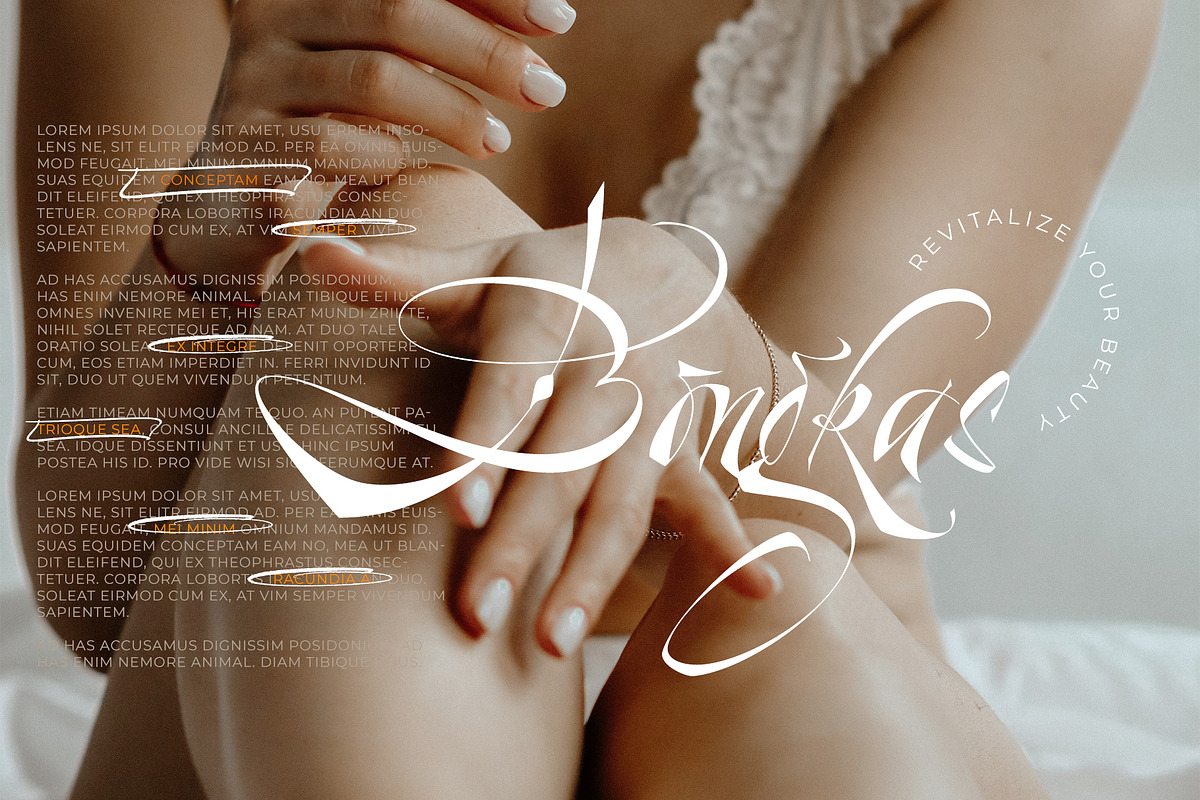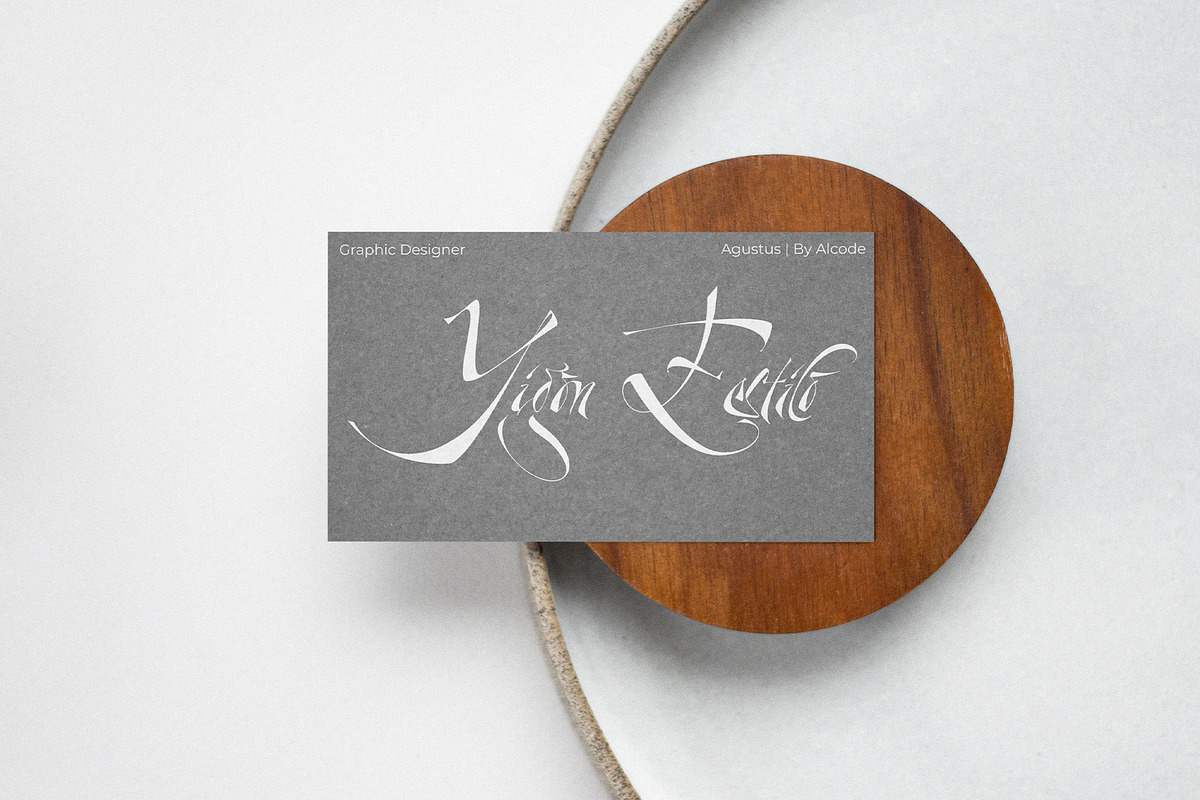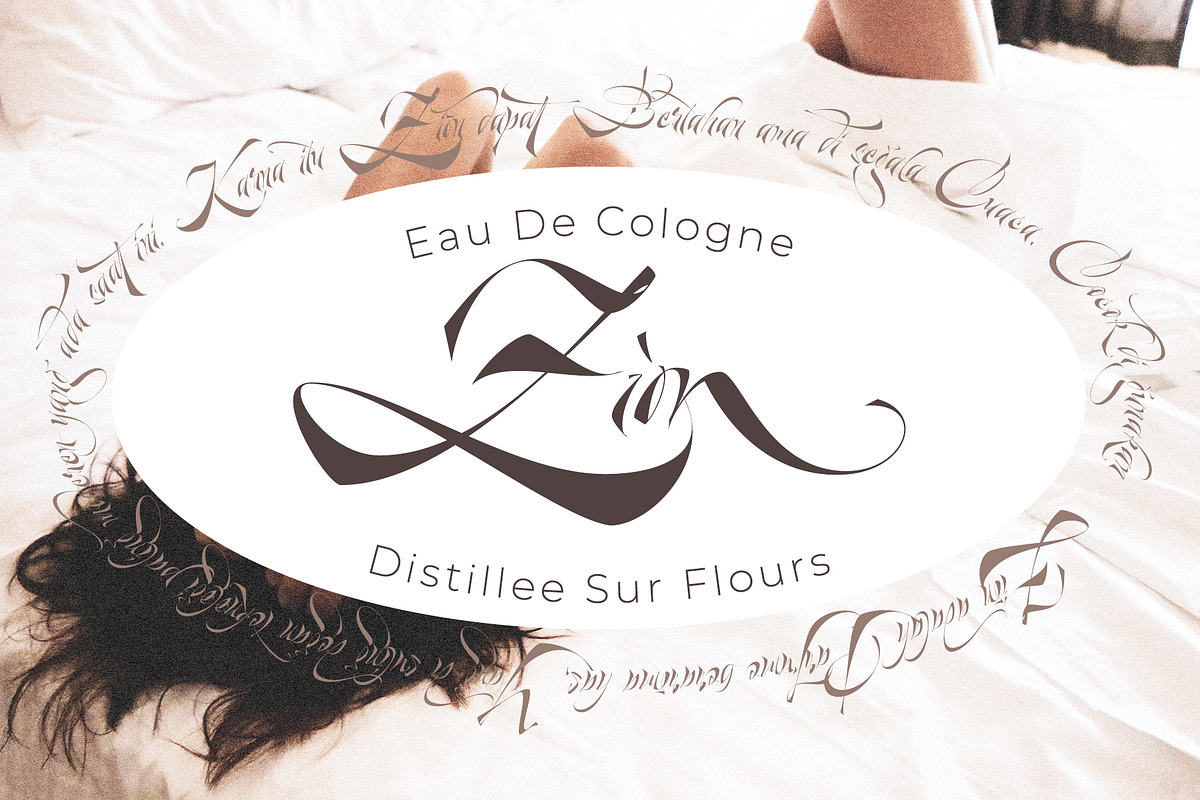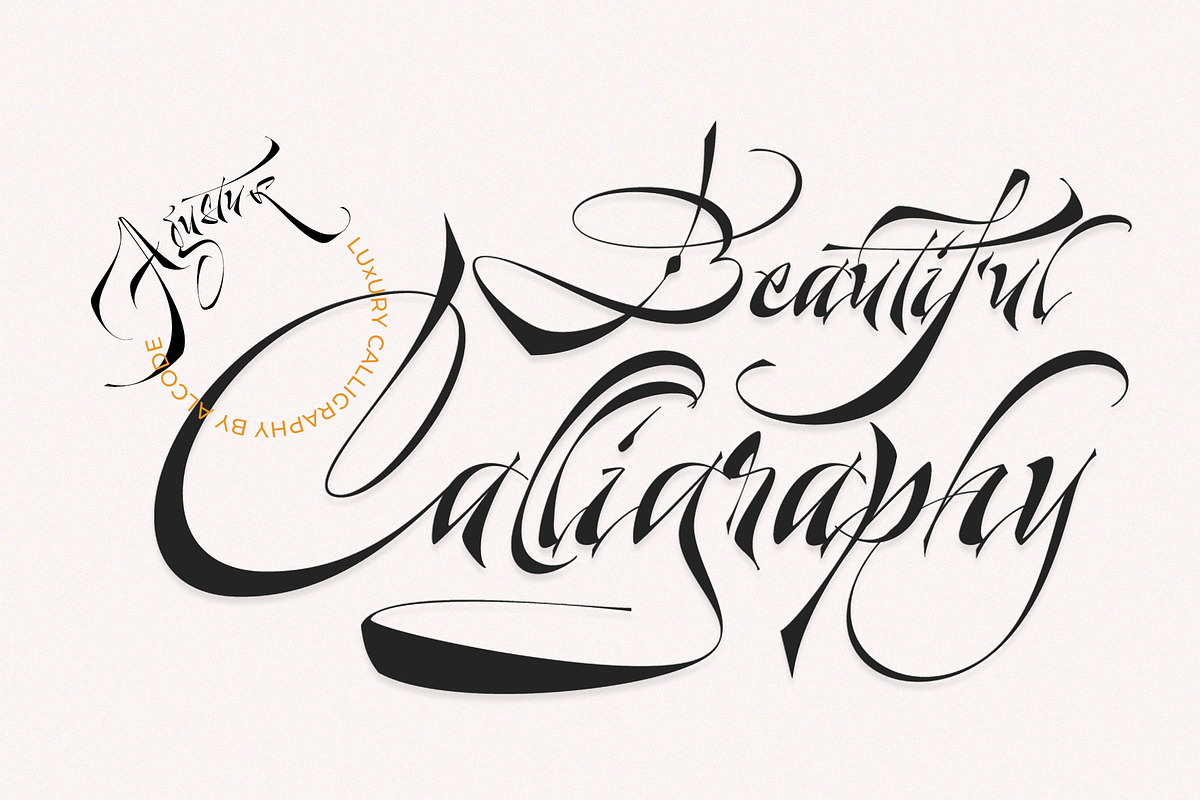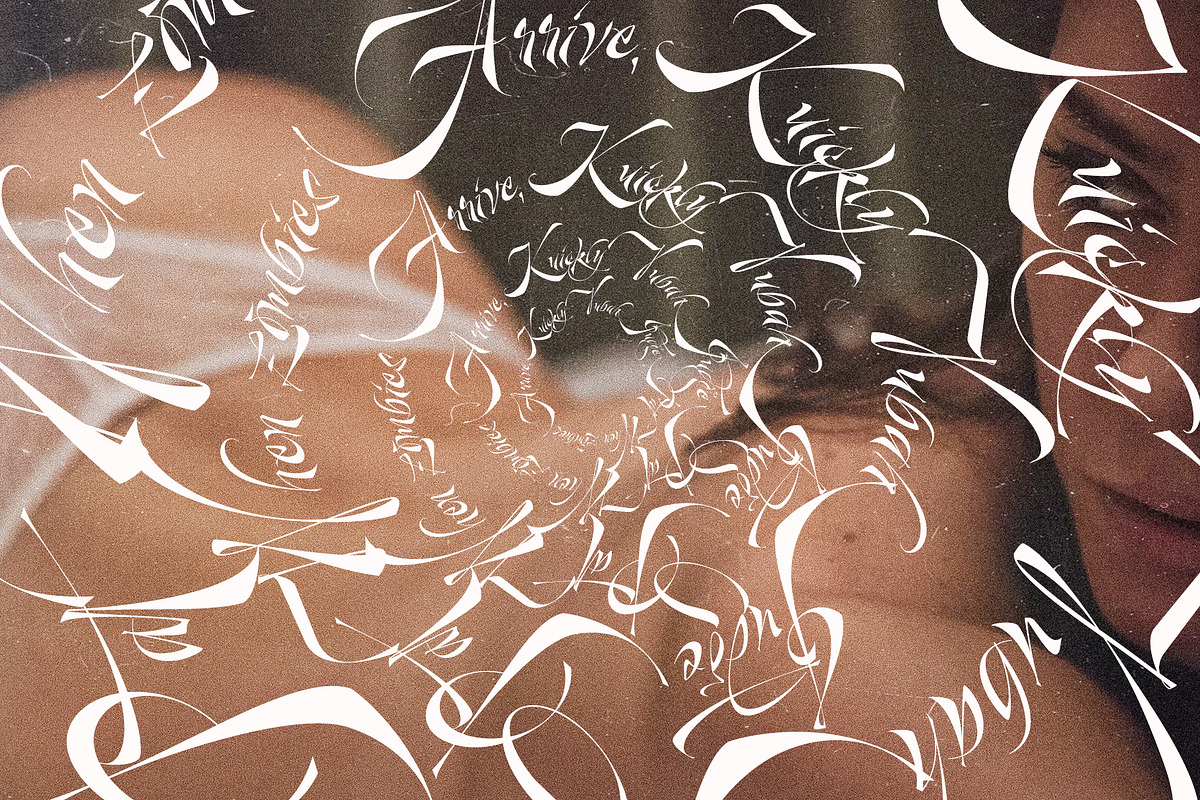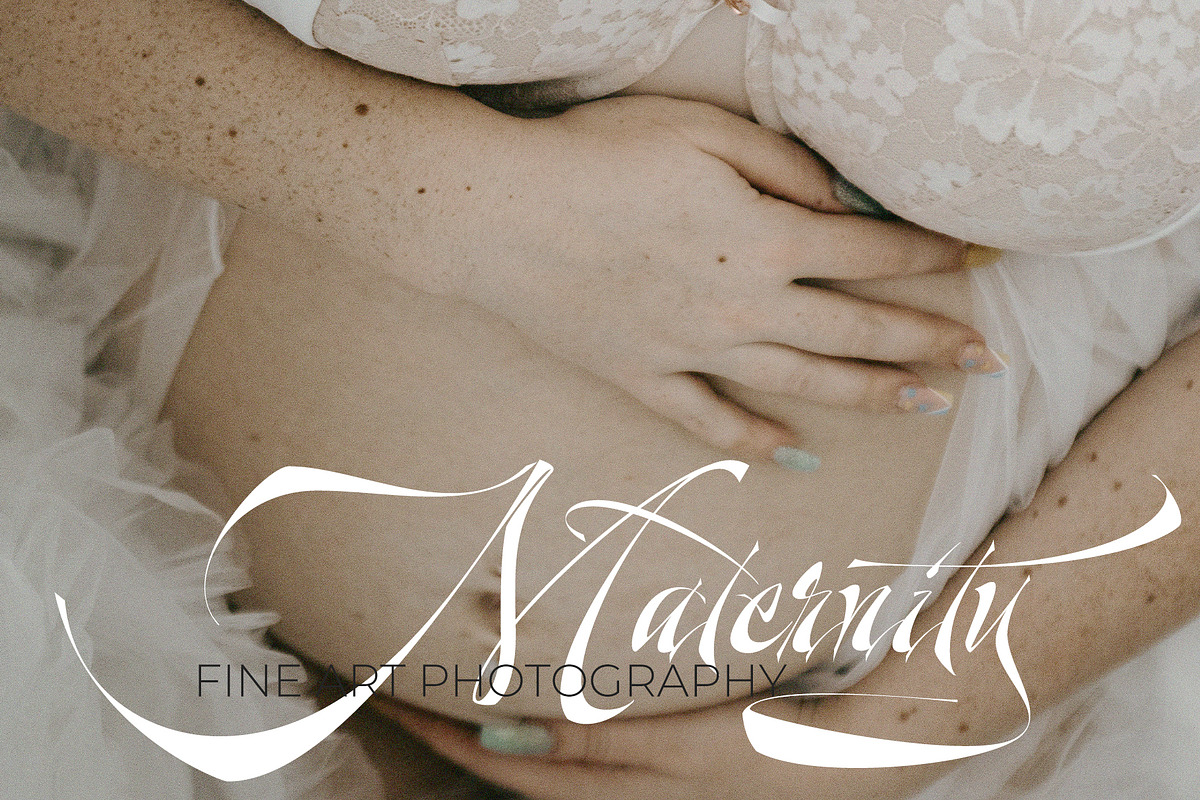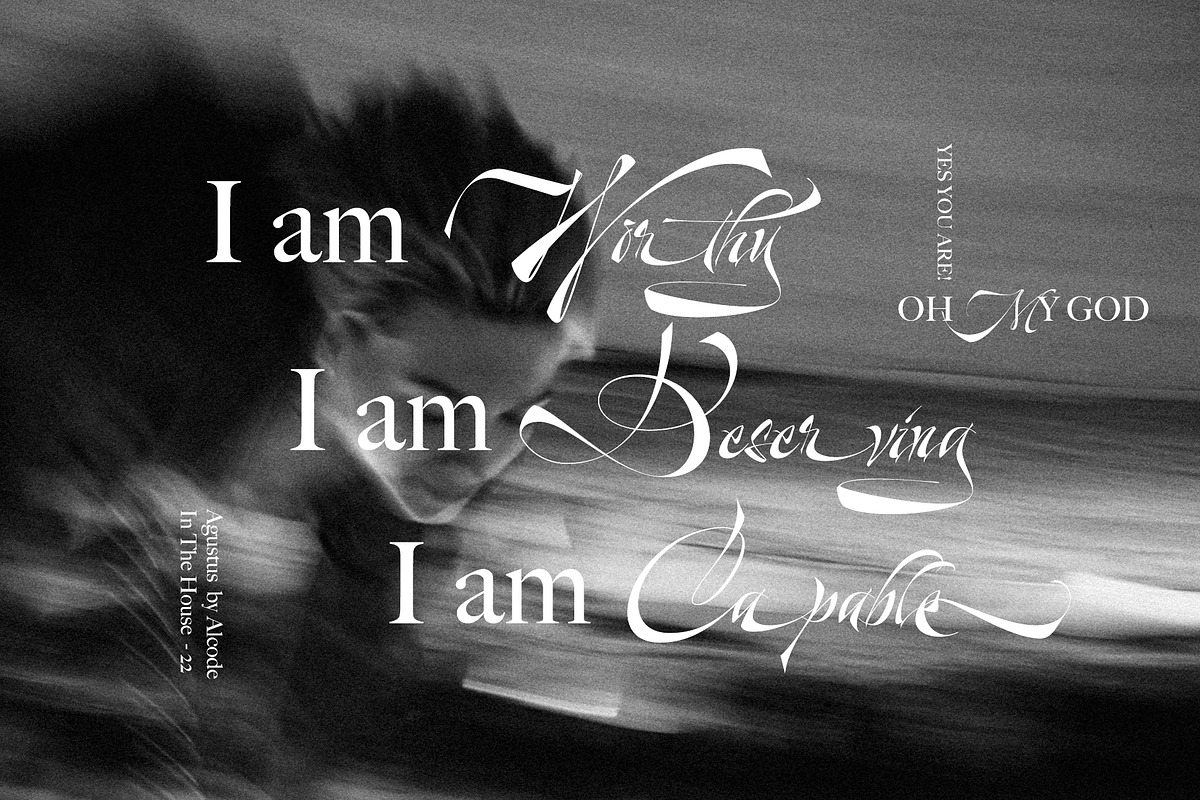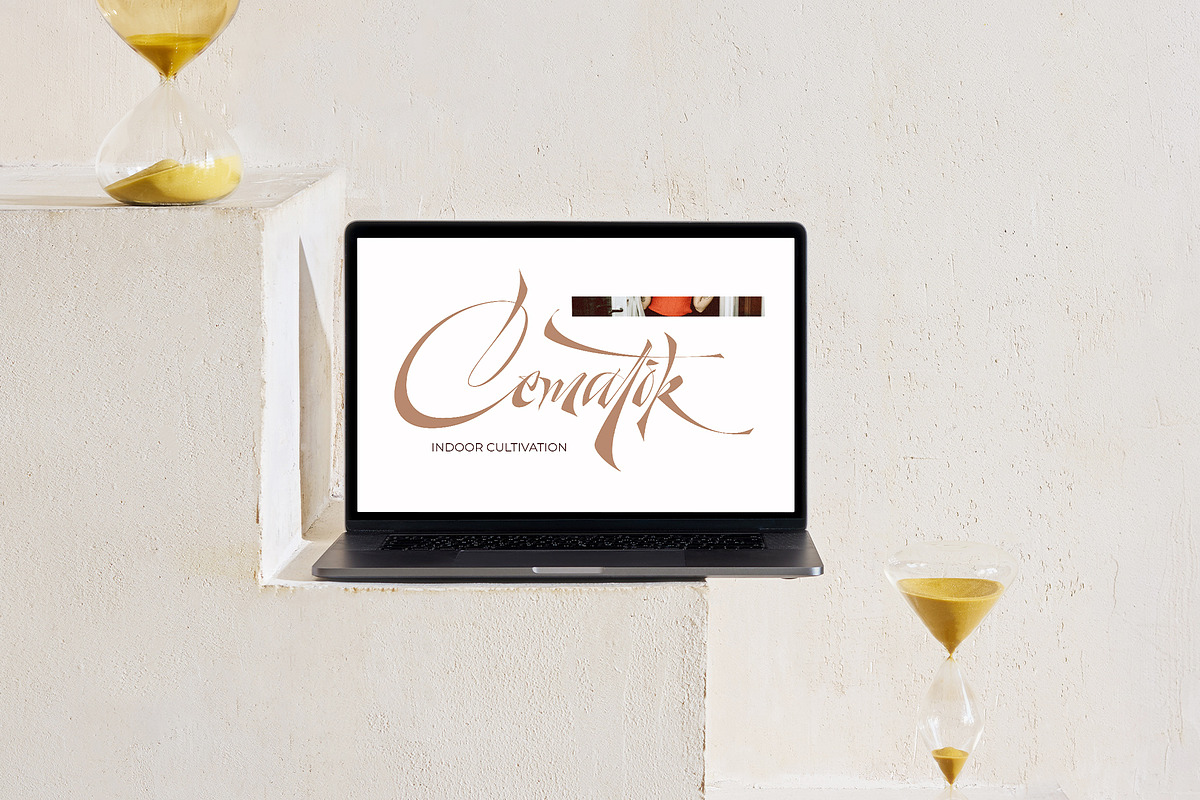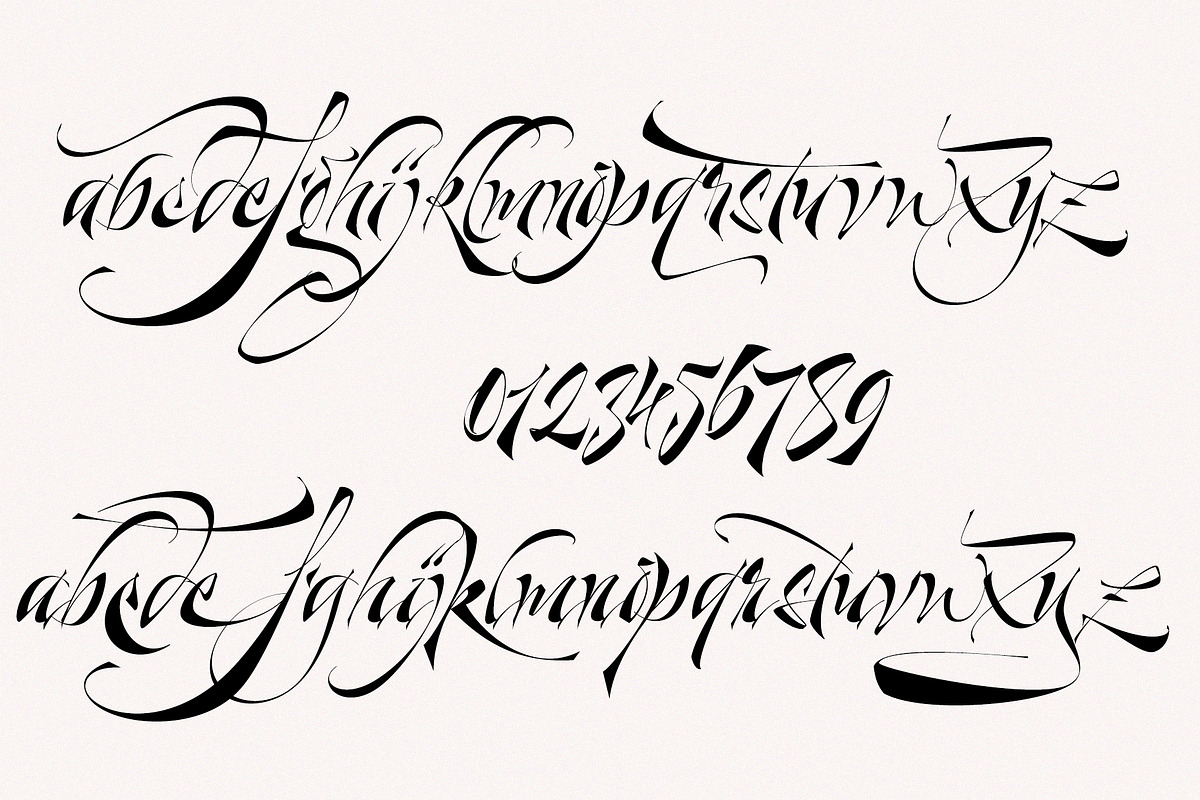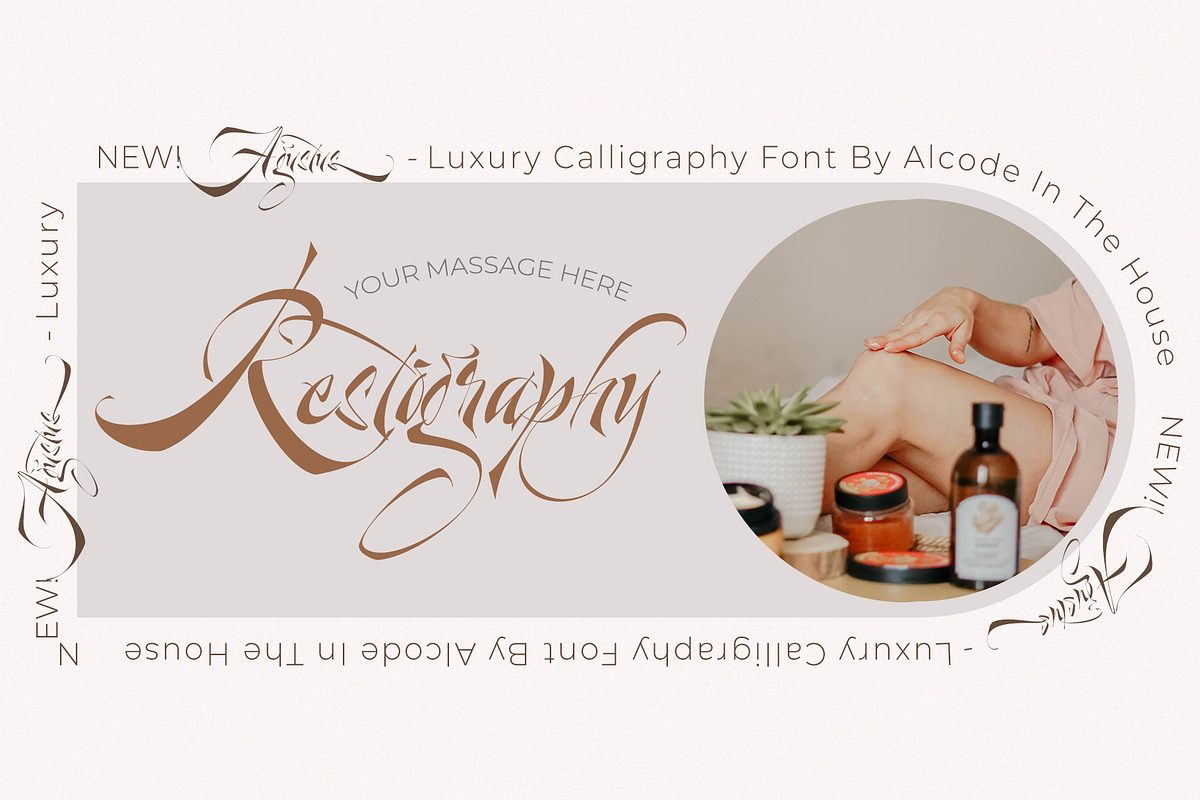
Agustus
Agustus is a classic font, Built to commemorate my country's 77th independence day. I made it with my relaxed hands. Classic font design but has a modern element in it, so it is perfect for wedding media, book covers, greeting cards, logos, branding, business cards and certificates, even for any design work that requires classic, formal or luxurious.
Try Agustus, enjoy the wealth of OpenType features and let its elegant fun and excitement make you happy and boost your creativity! You can use this font very easily.